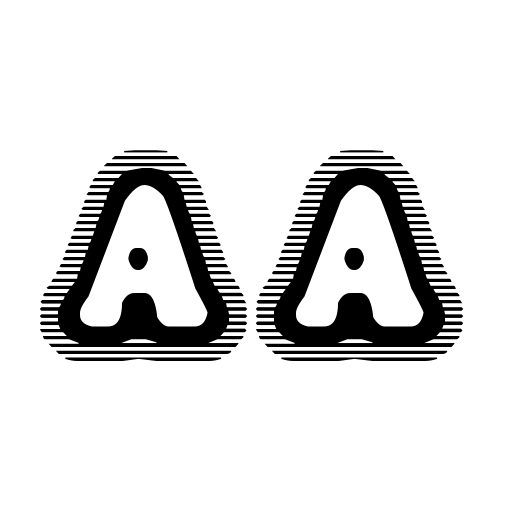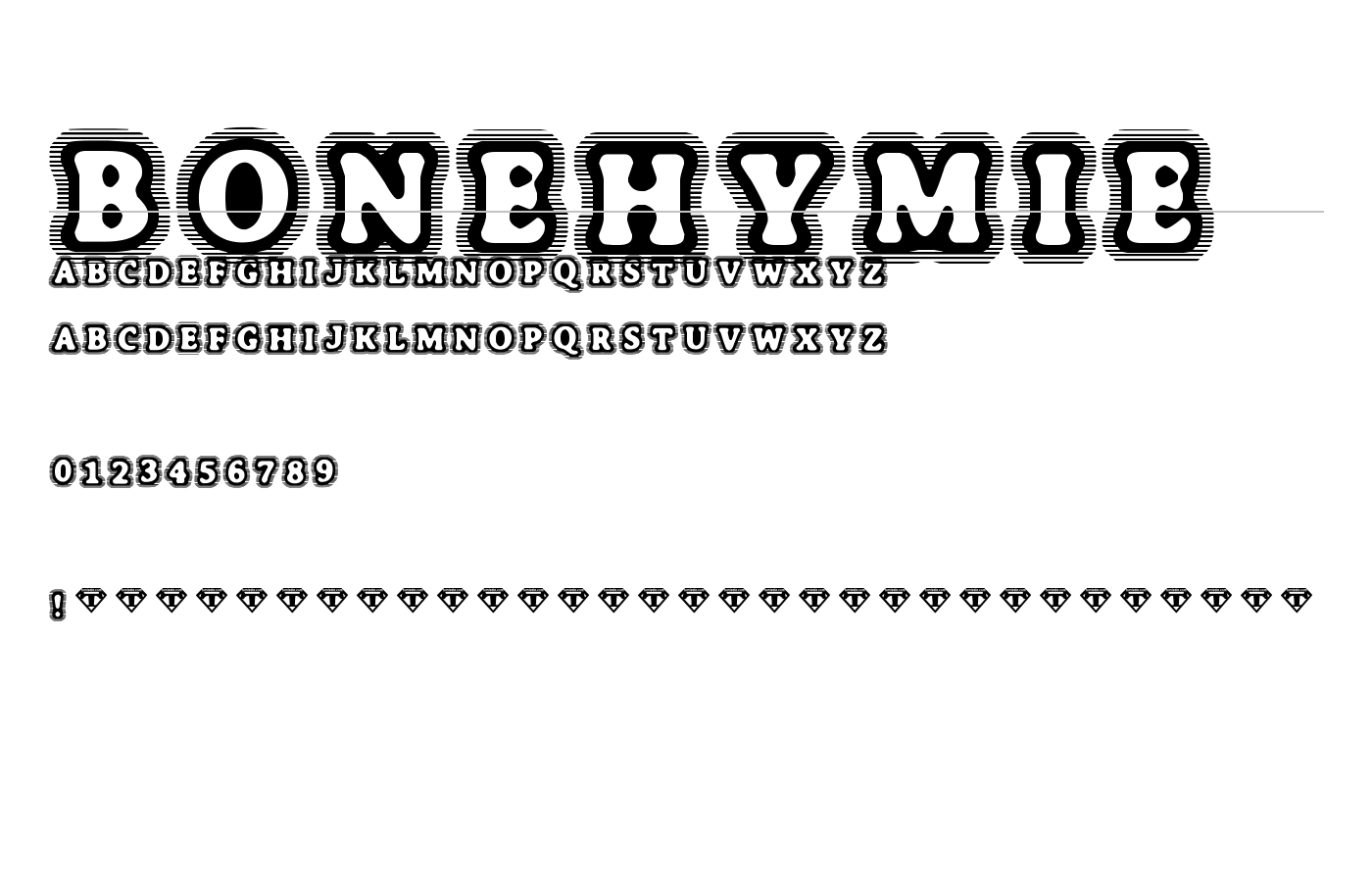
BoneHymie is a bold, playful display font characterized by its chunky, rounded letterforms enhanced with layered shadow lines that add depth and a retro vibe. Its distinctive style brings a sense of fun and uniqueness, making it ideal for attention-grabbing headlines, posters, and creative branding projects where a lively and energetic feel is desired. This font works best in decorative contexts where a strong visual impact is key.
BoneHymie Font
About BoneHymie Font